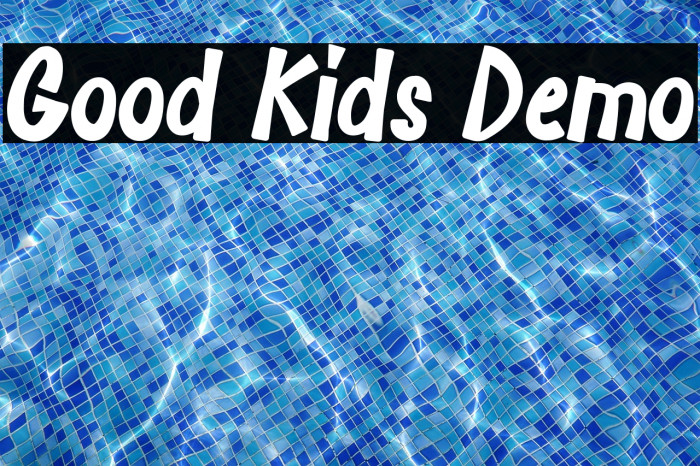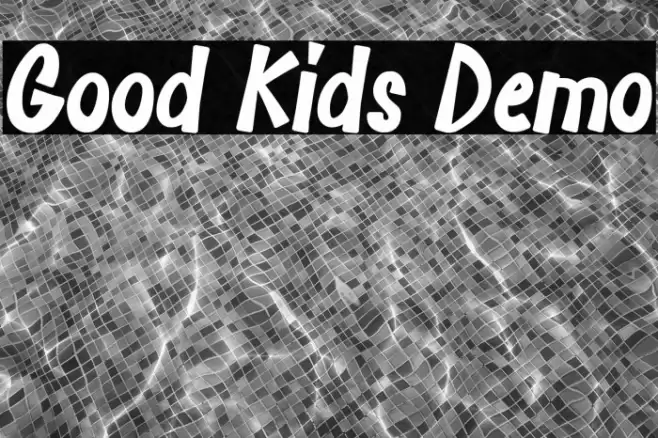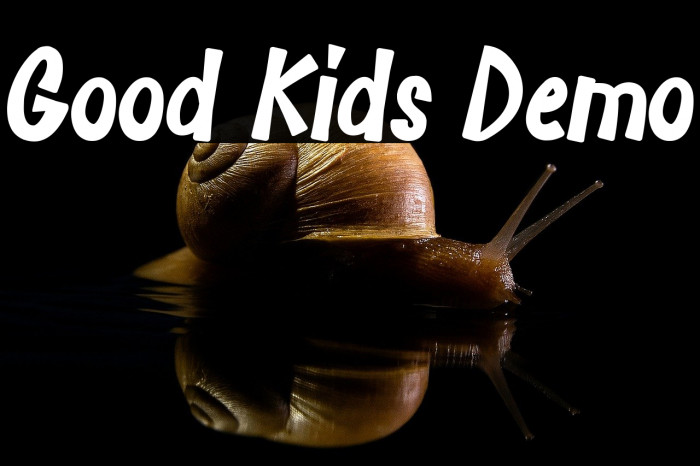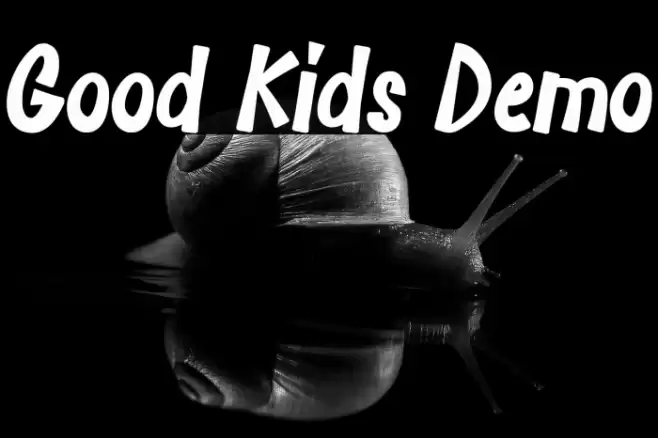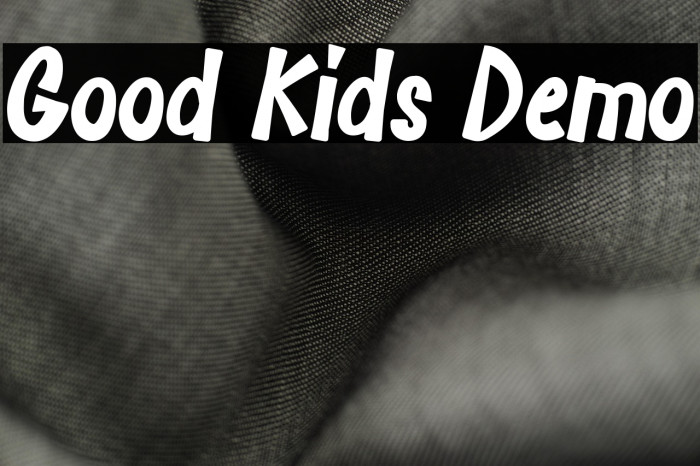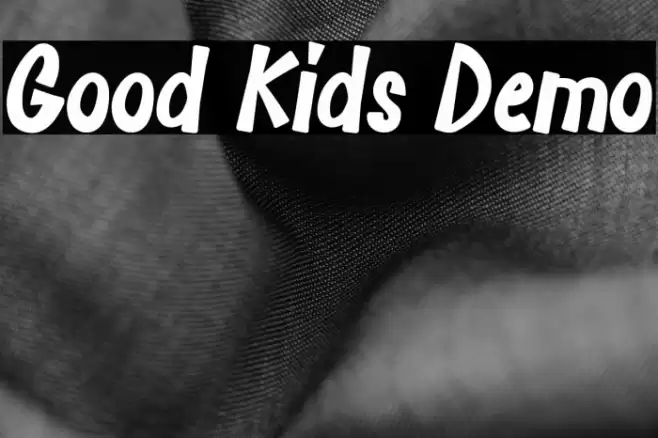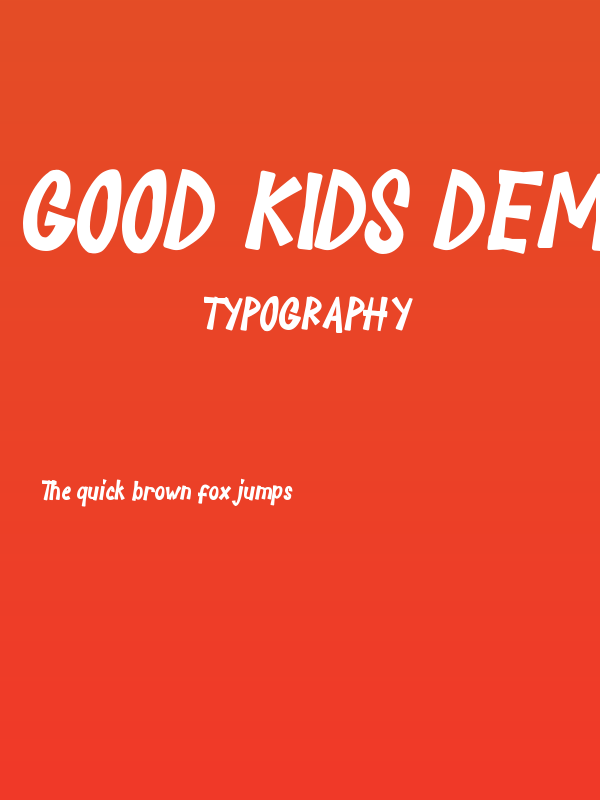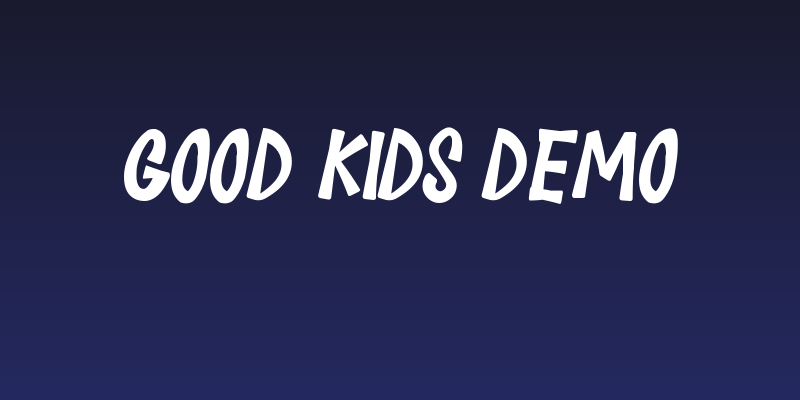
Good Kids Demo Font
Good Kids Demo Description
This playful and energetic font features bold, slightly irregular strokes that give it a hand-drawn appearance. The uppercase letters are tall and slightly narrow, with a dynamic slant that adds a sense of movement. The lowercase letters maintain a consistent style, with rounded edges and a whimsical flair. The font's overall look is casual and friendly, making it ideal for projects that require a fun and approachable aesthetic. The numbers and special characters are crafted with the same playful style, ensuring a cohesive look across all text elements.
| Proposed Projects | Ideal for children's books, playful branding, casual invitations, and creative posters. |